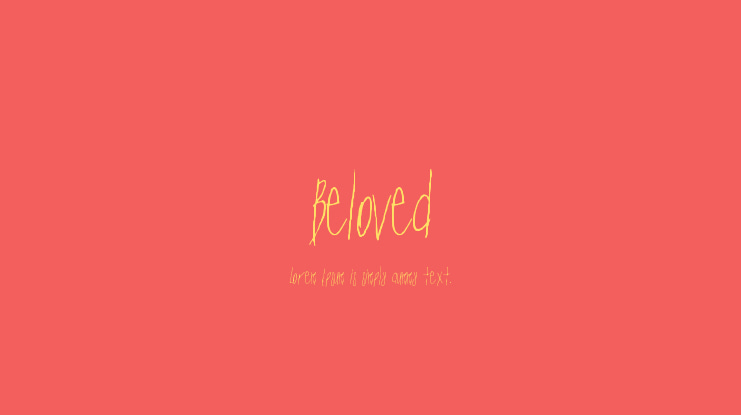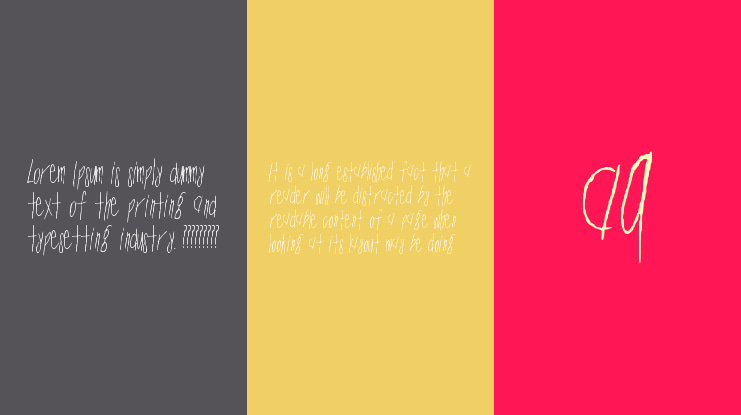
Beloved Font
This is a simple, handwritten thin font. Feel free to let me know how you would describe this font. The background image was free to use from Pixabay. If you would like to use this font commercially, it only costs 99c at https://www.creativefabrica.com/designer/shelley-2 Thank you!